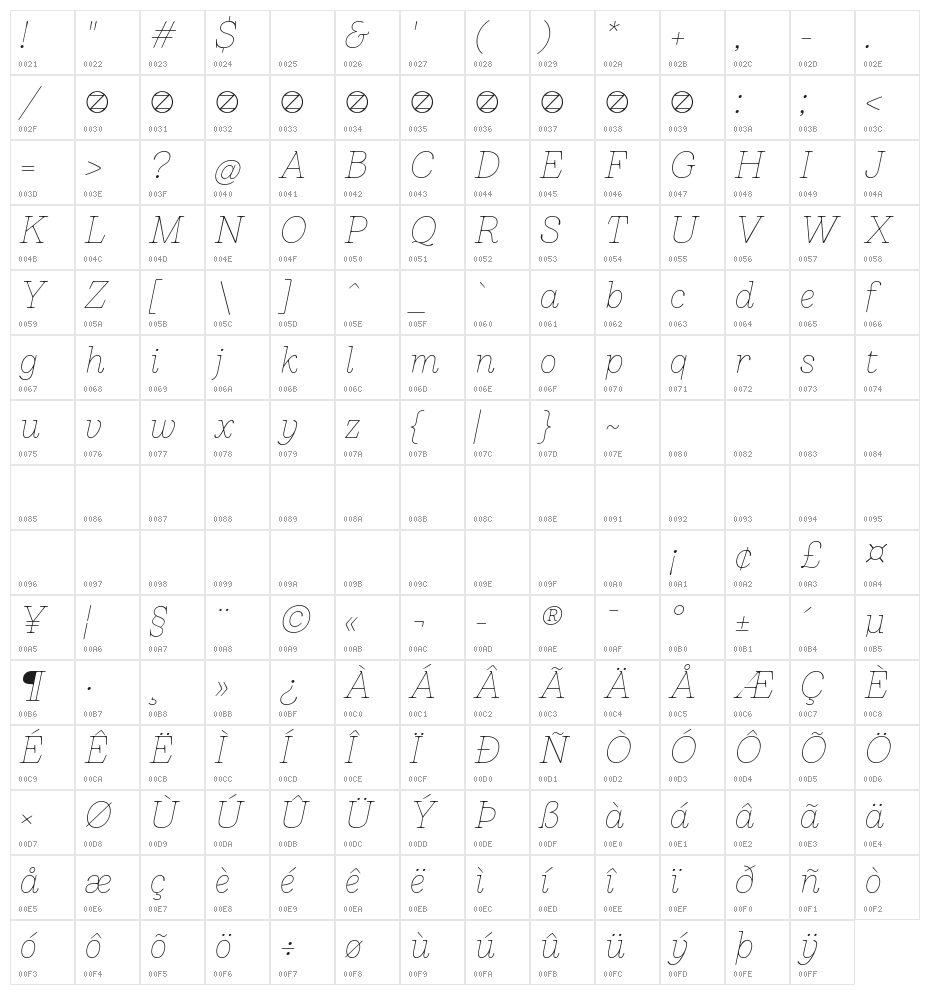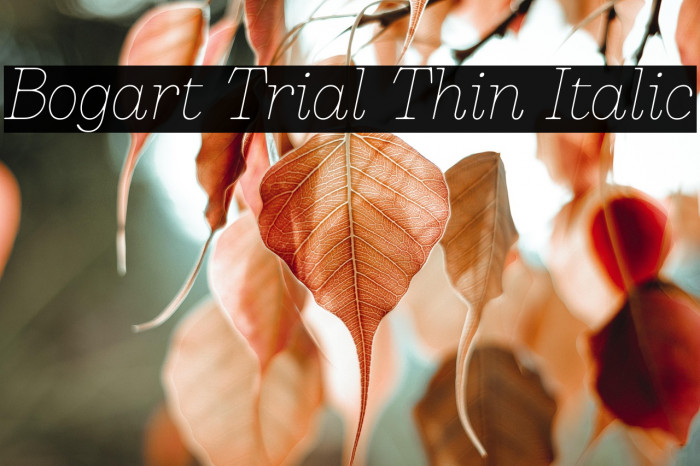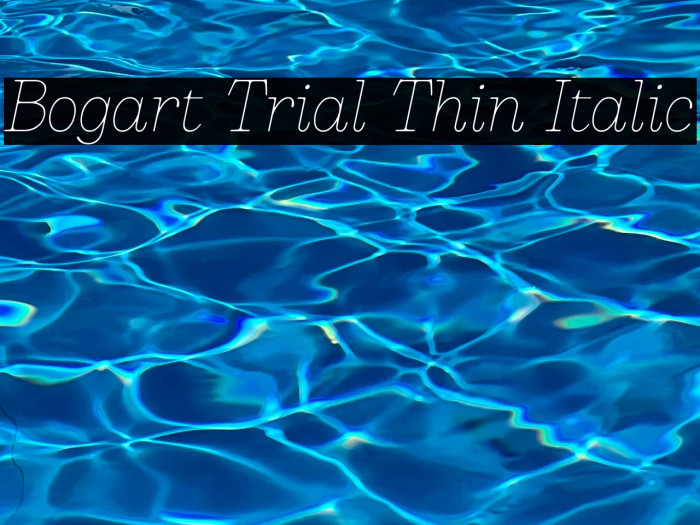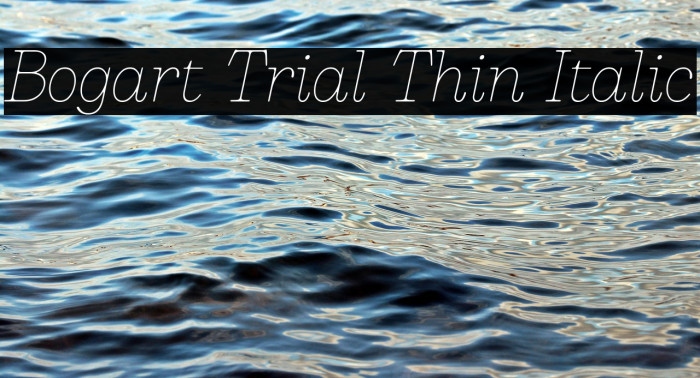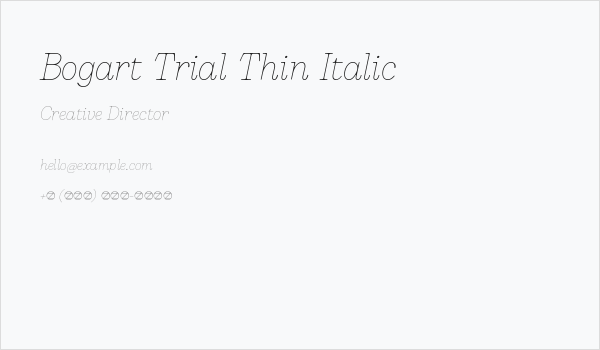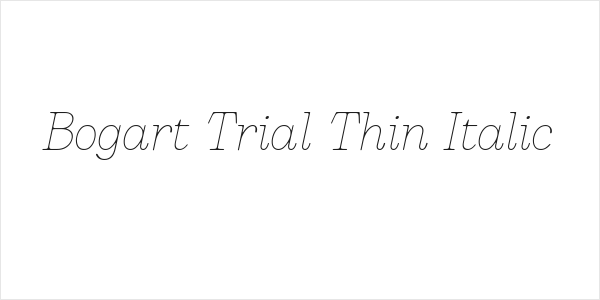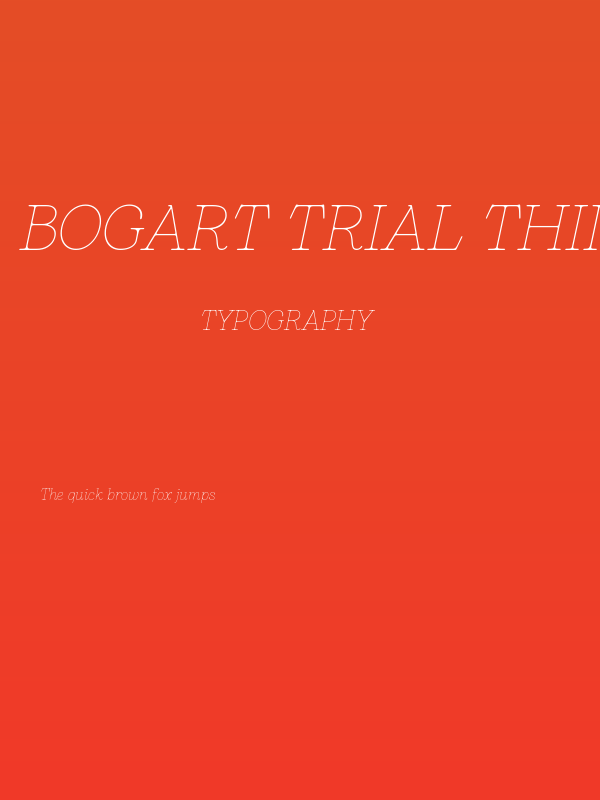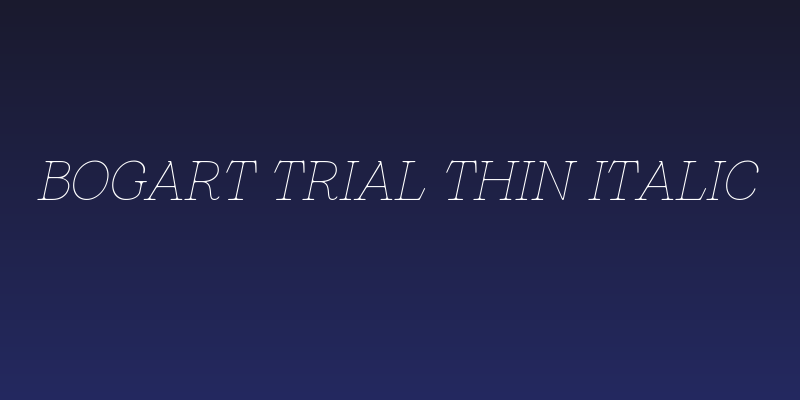
Bogart Trial Thin Italic Font
Bogart Trial Thin Italic Description
This elegant typeface features a thin, delicate structure with a graceful italic slant. The characters are finely crafted with a high degree of legibility, making it suitable for sophisticated and refined designs. The uppercase letters are tall and slender, while the lowercase letters maintain a consistent flow with subtle curves. The numerals and special characters complement the overall aesthetic, adding to its versatility. The font's thin strokes and minimal contrast give it a modern, airy feel, perfect for projects that require a touch of elegance and style.